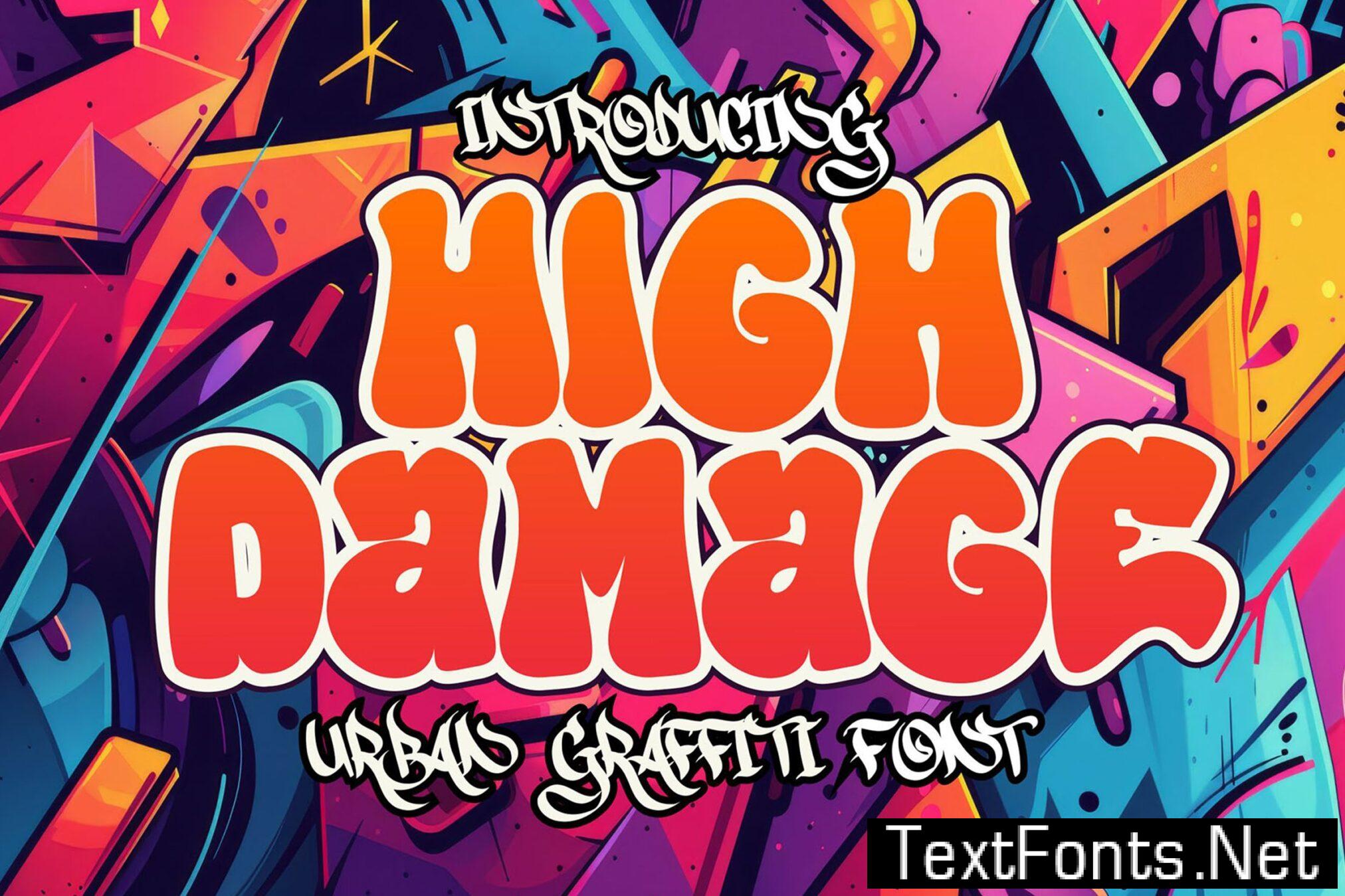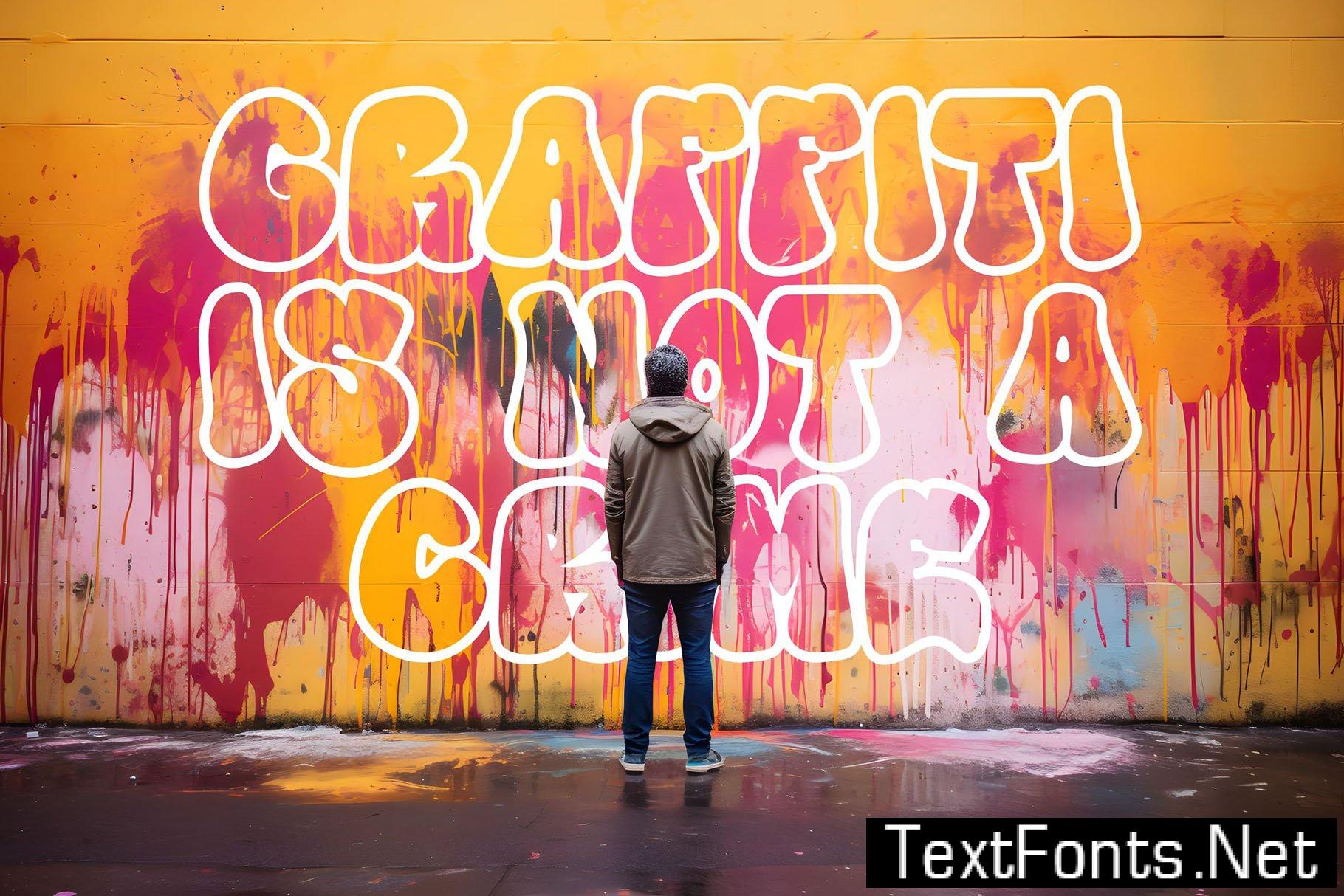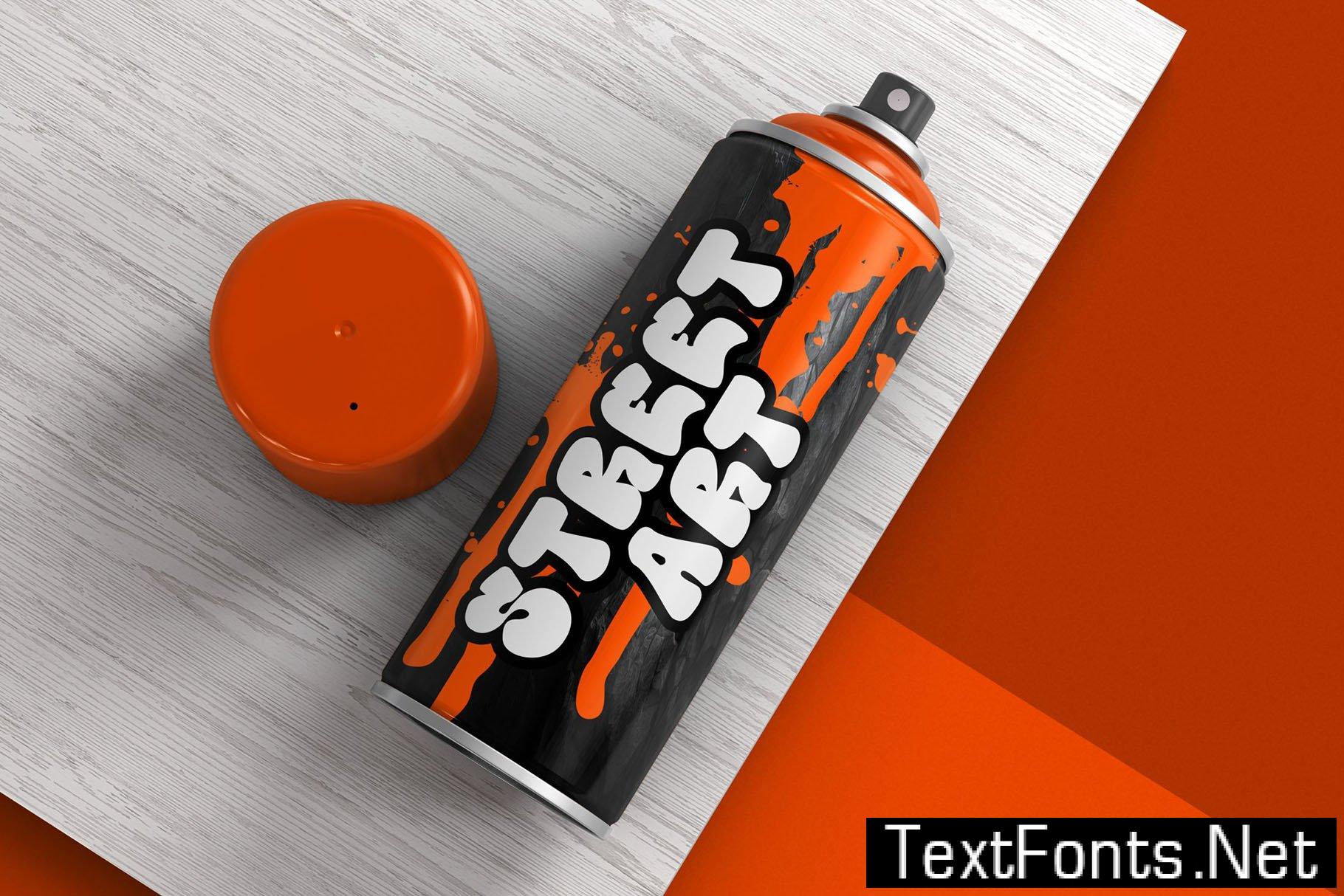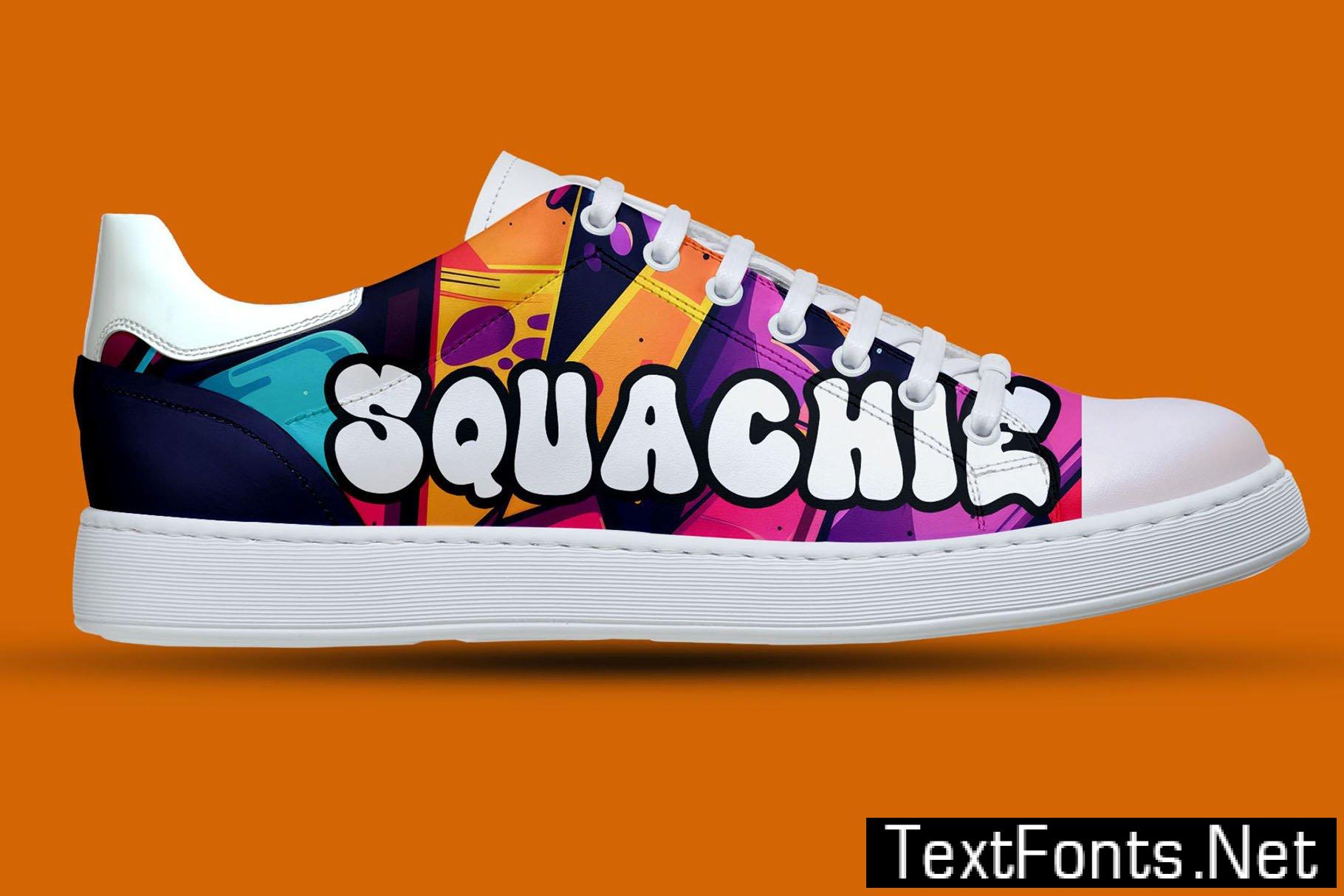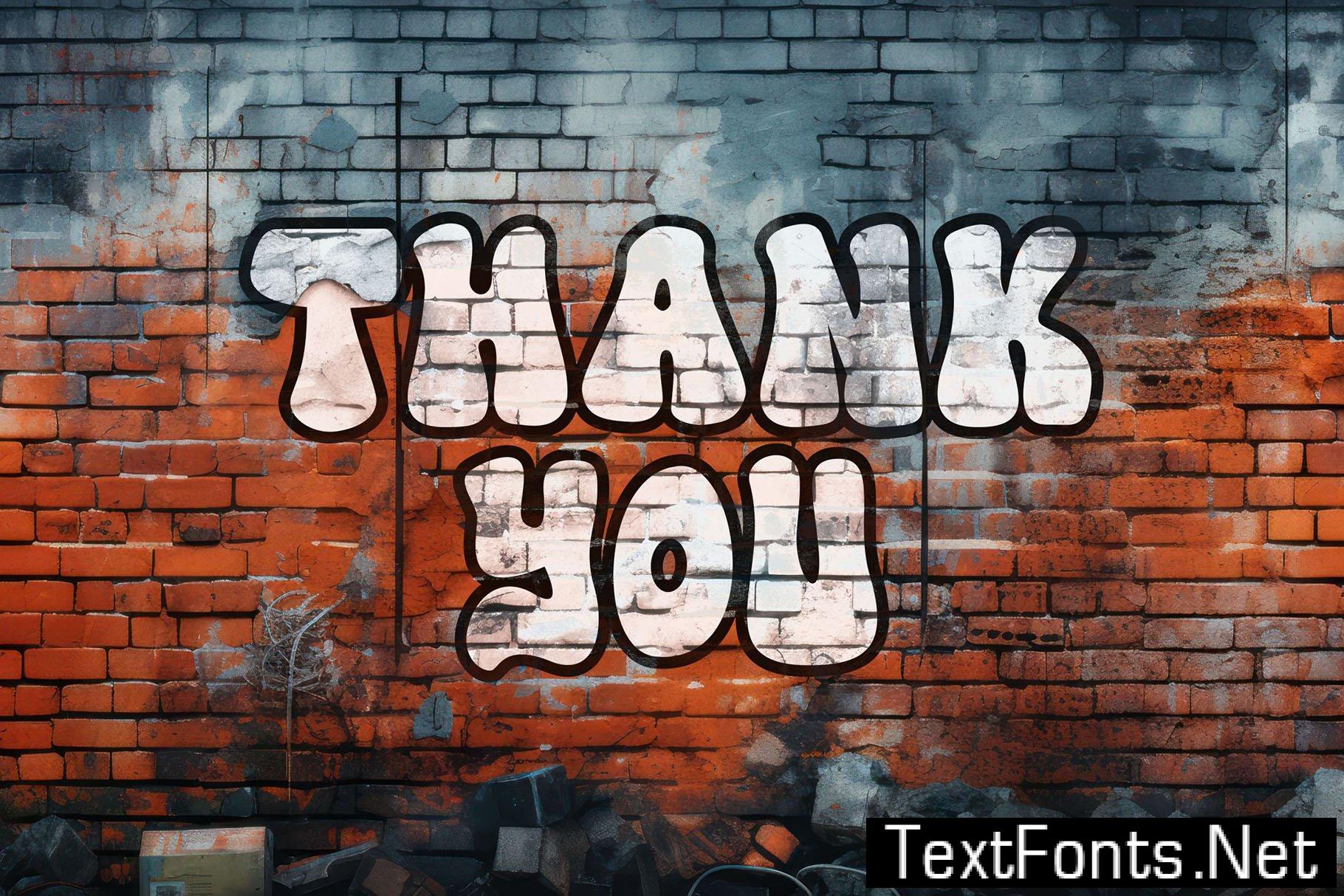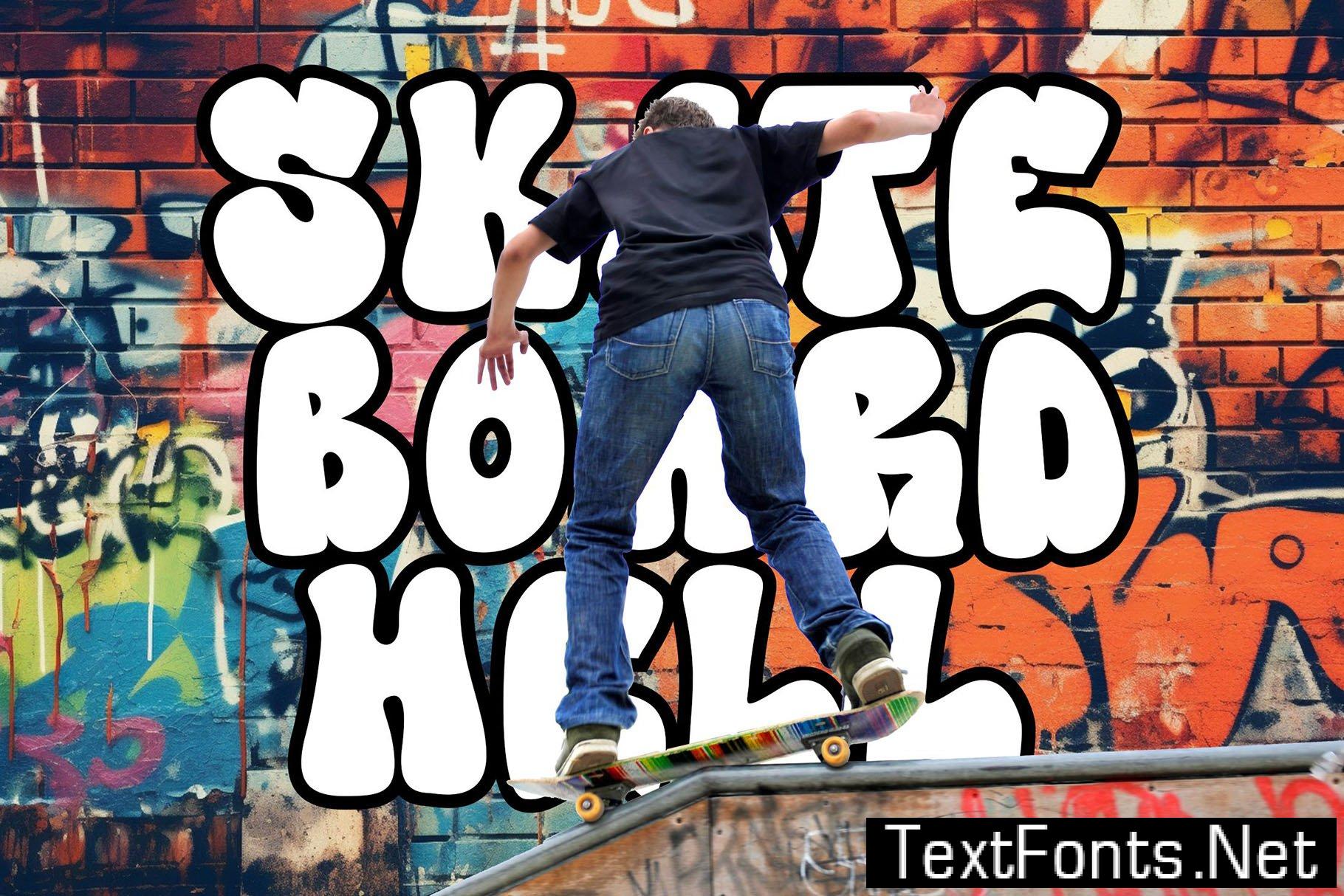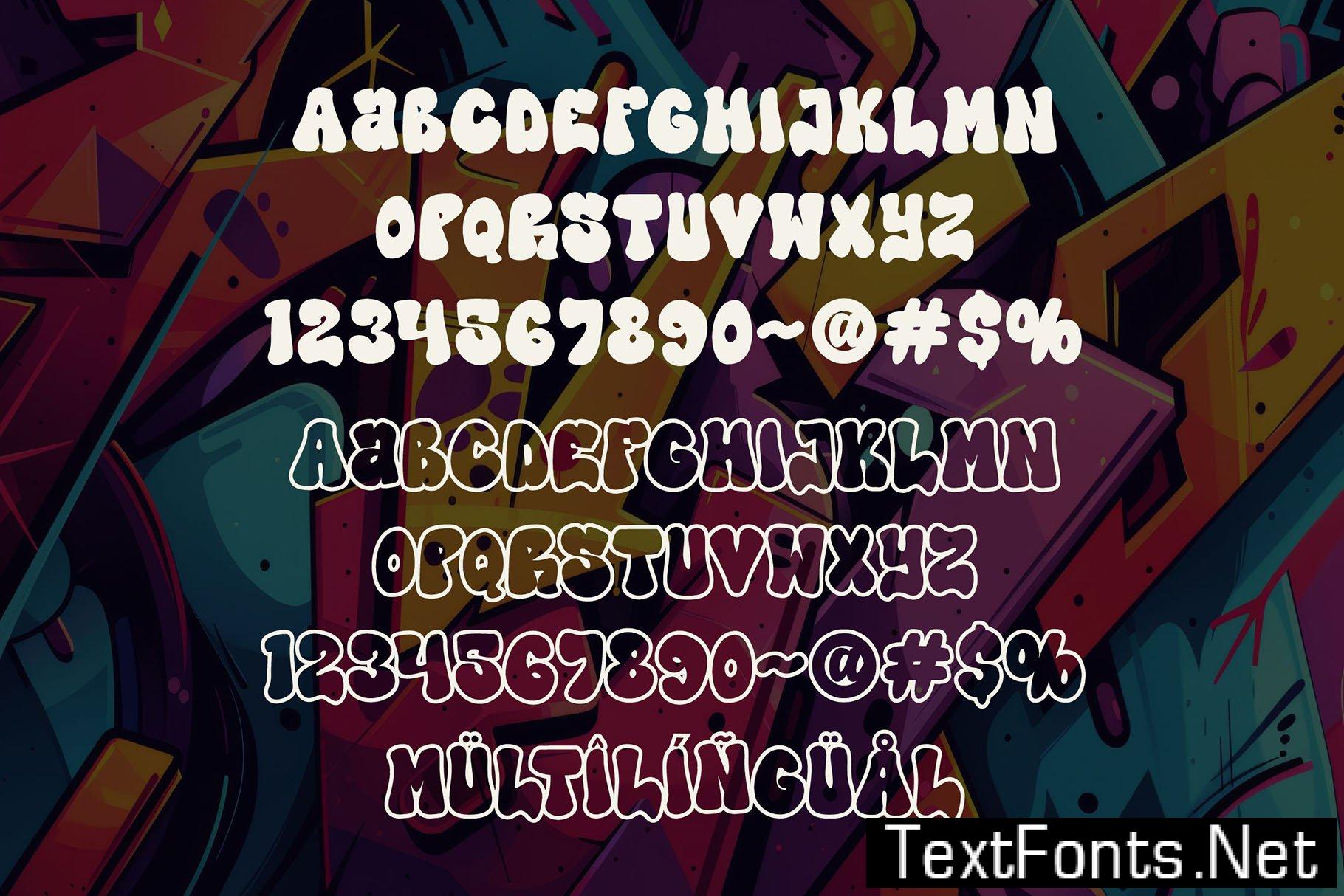
**High Damage** is an urban graffiti font that brings the raw energy and rebellious spirit of street art to your designs. With its bold, edgy strokes and dynamic presence, this font captures the essence of urban culture, making it the perfect choice for projects that demand an impactful and authentic look.
🔥 Bold and Edgy: High Damage boasts thick, powerful lines that mimic the intensity of graffiti tags. Each character is designed to stand out, ensuring your text grabs attention and leaves a lasting impression.
🎨 Urban Vibes: This font is a true representation of street art, reflecting the gritty, unpolished aesthetic of graffiti. It’s ideal for posters, flyers, album covers, and any project that aims to convey a sense of urban authenticity.
🚀 Dynamic Presence: High Damage adds a sense of movement and dynamism to your text. The font’s energetic design brings life to your words, making them pop off the page and resonate with a youthful, rebellious audience.
🌟 Versatile and Impactful: Whether you’re designing for music events, streetwear brands, or edgy marketing campaigns, High Damage fits seamlessly into any context that requires a strong, urban influence.
🌆 Authentic Street Art: High Damage embodies the spirit of graffiti with its hand-drawn look and feel. It’s perfect for designers looking to infuse their projects with the bold, unapologetic style of street culture.
Elevate your designs with the fierce and captivating style of High Damage. This urban graffiti font delivers an authentic street art aesthetic, ensuring your projects make a bold and unforgettable statement.